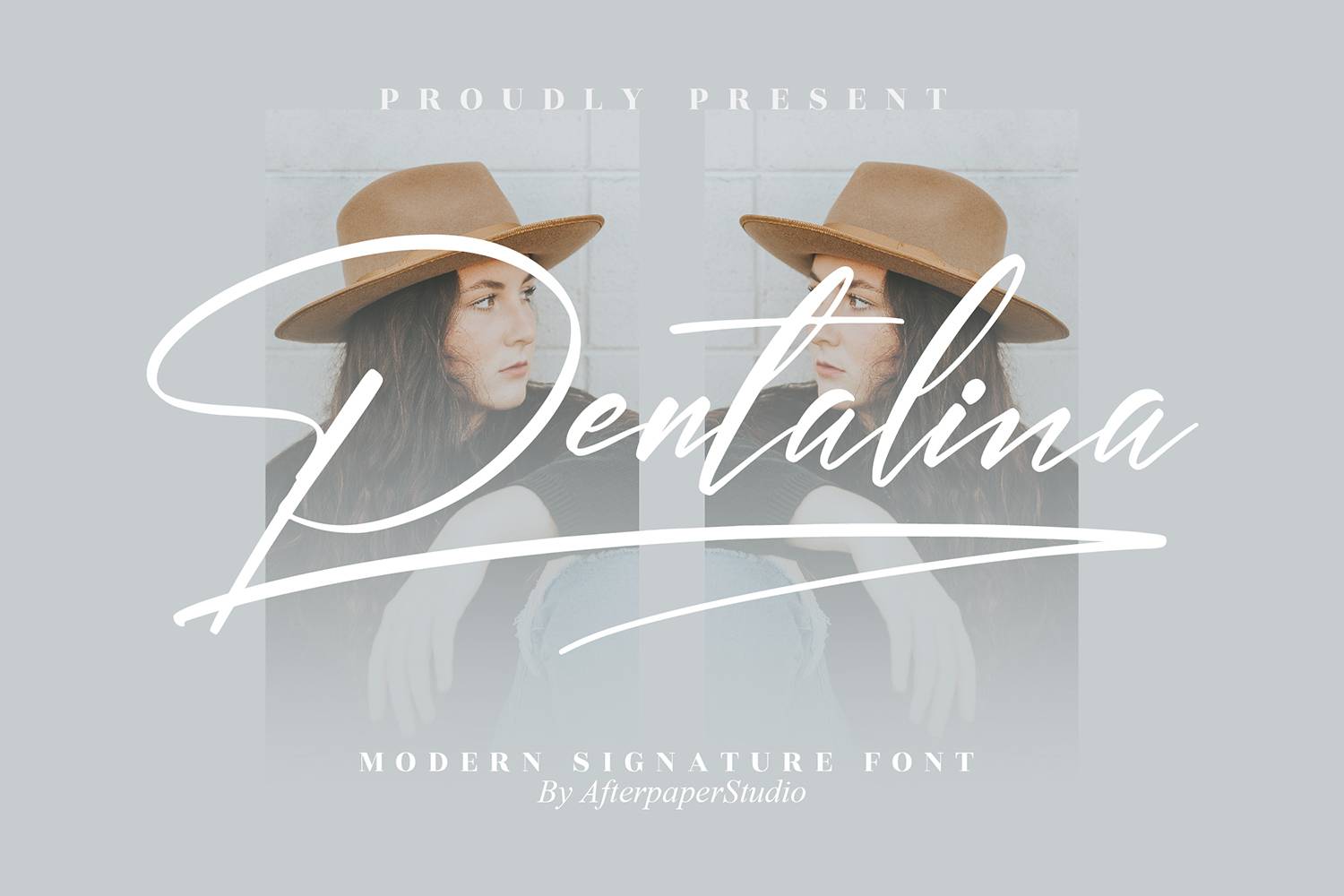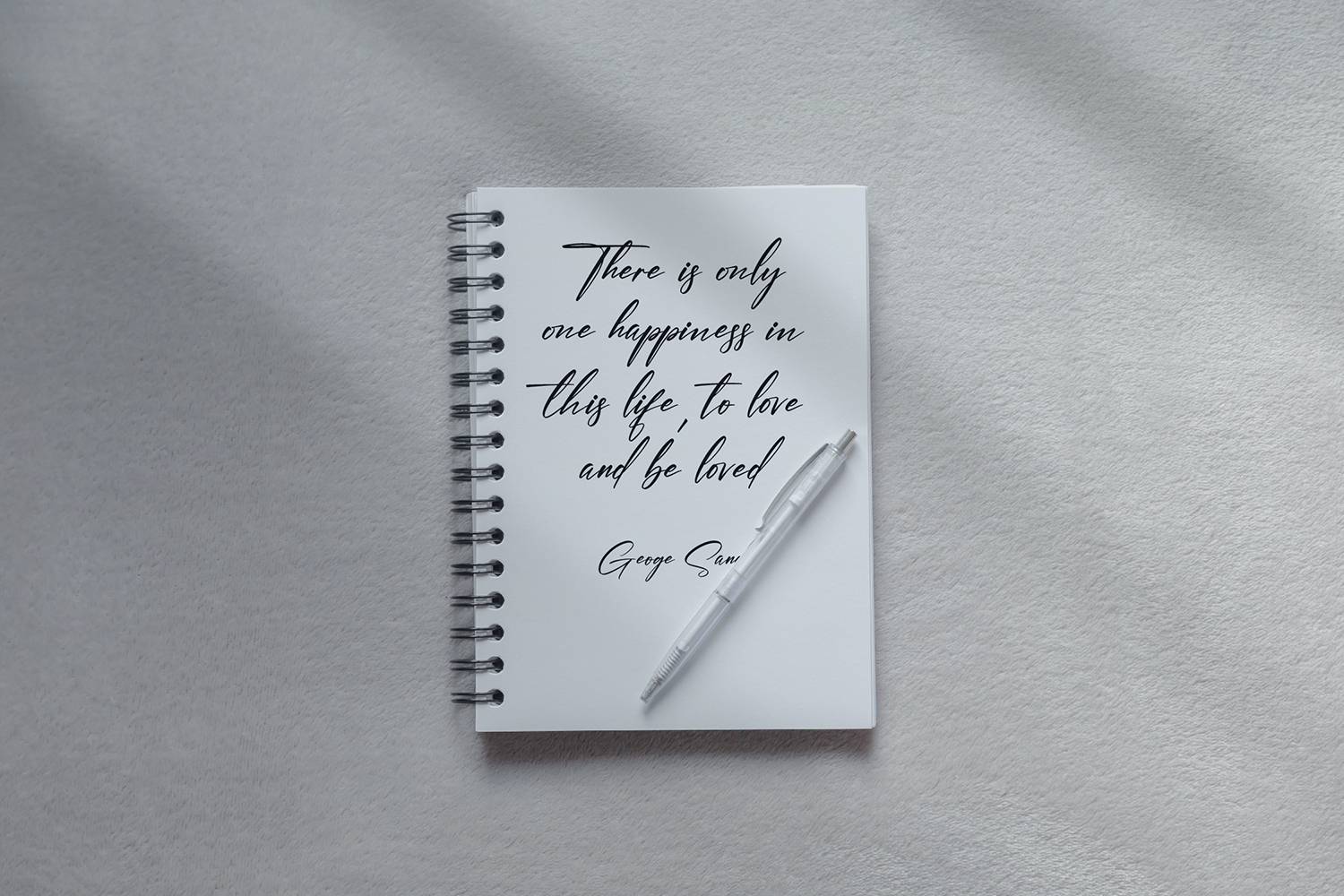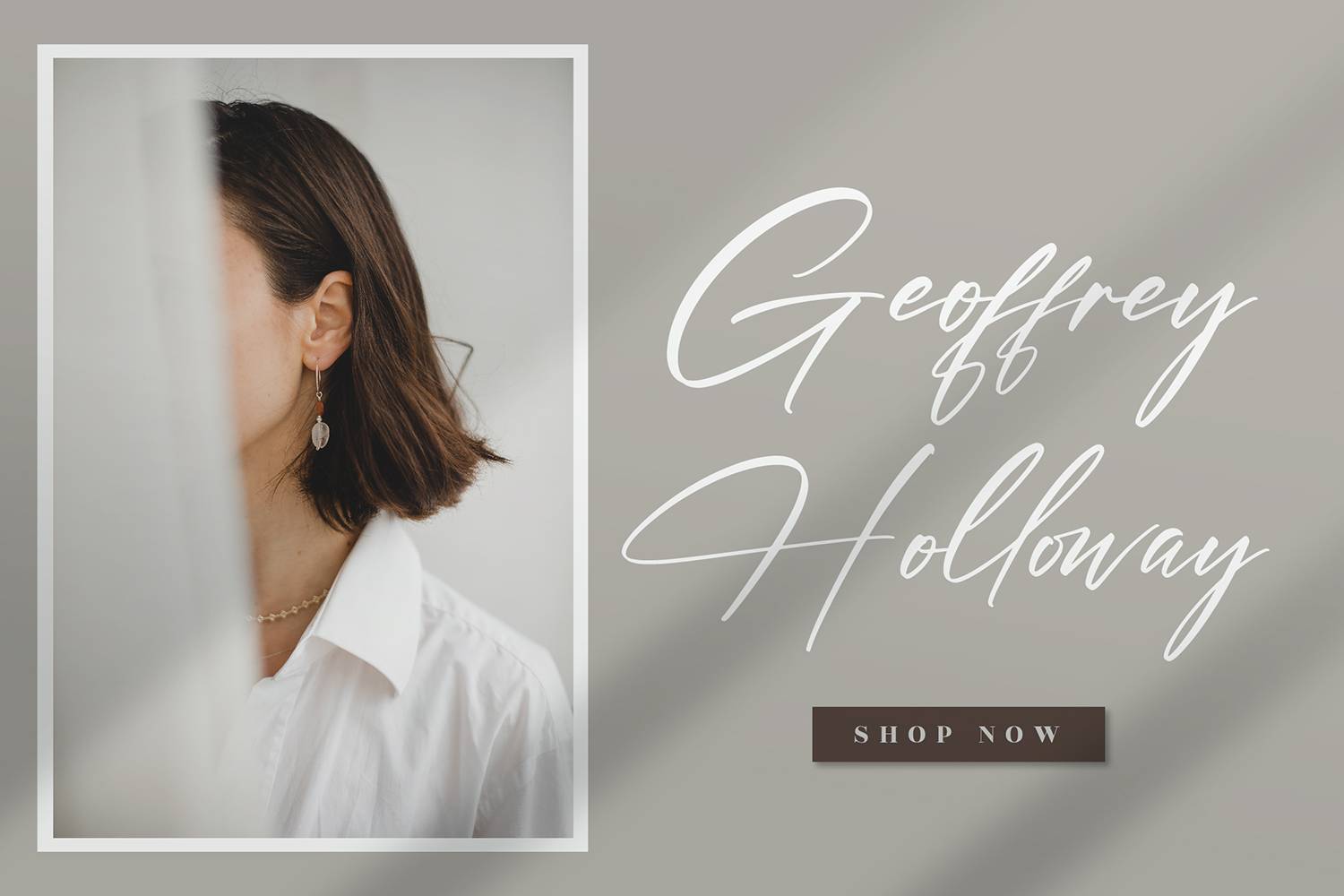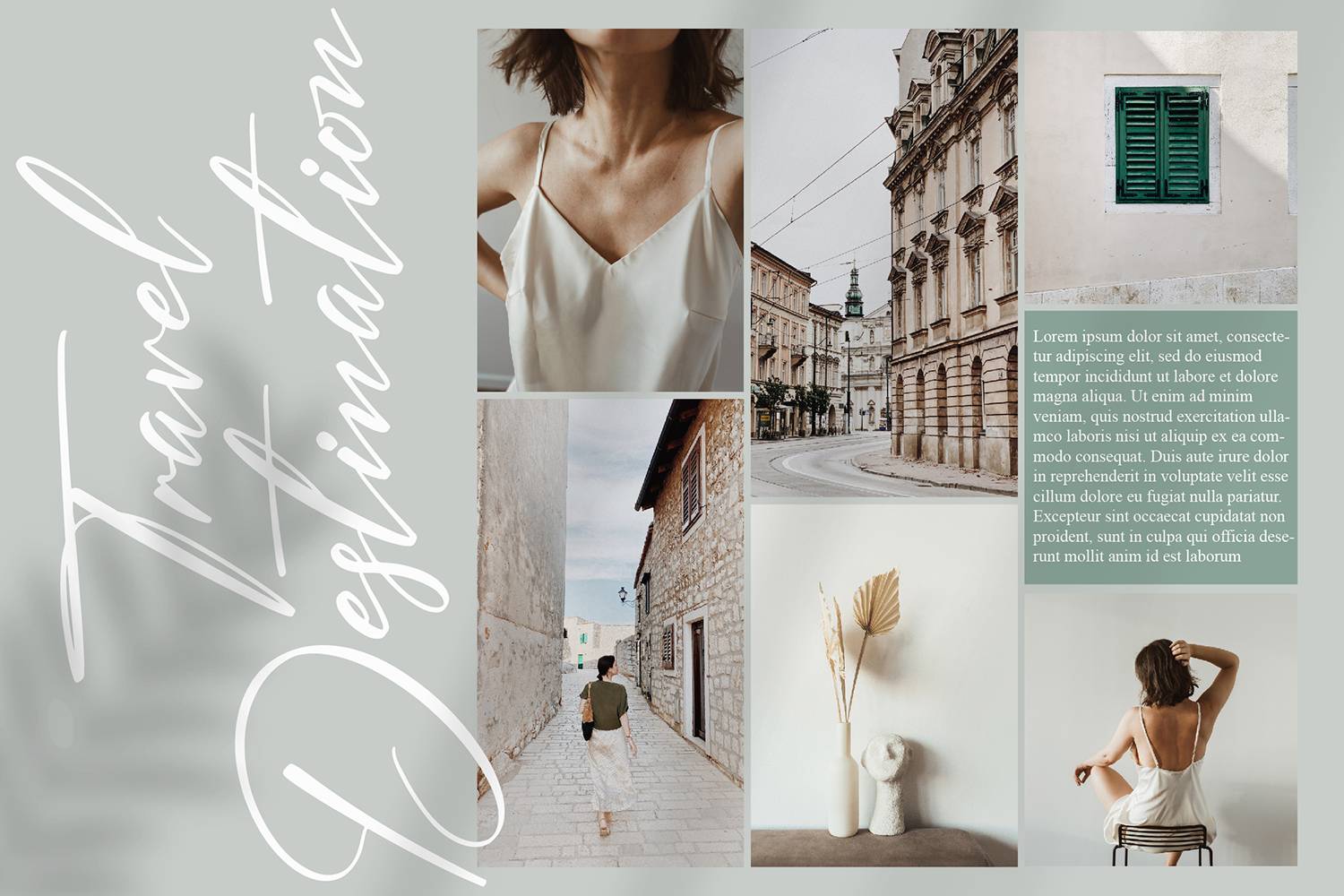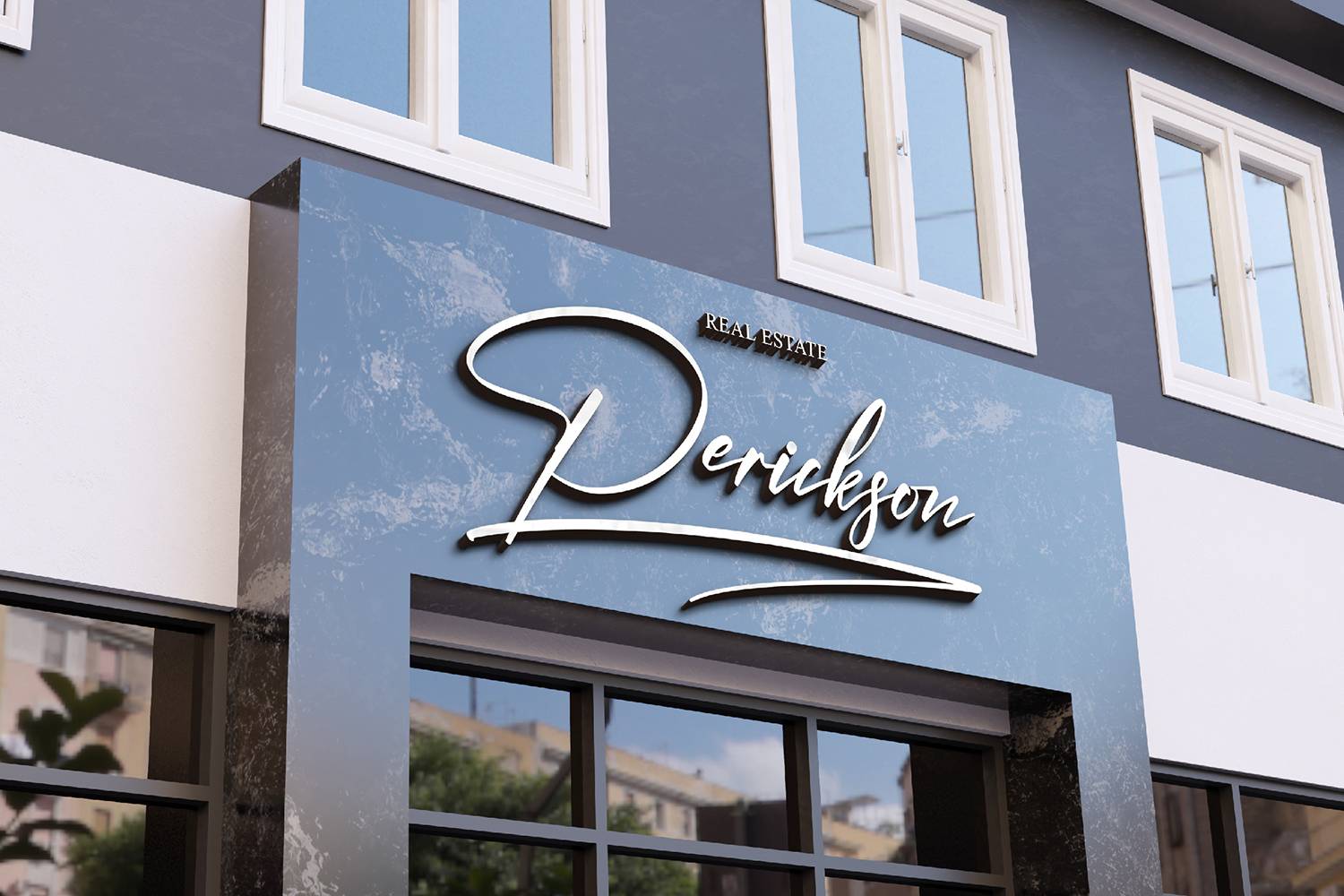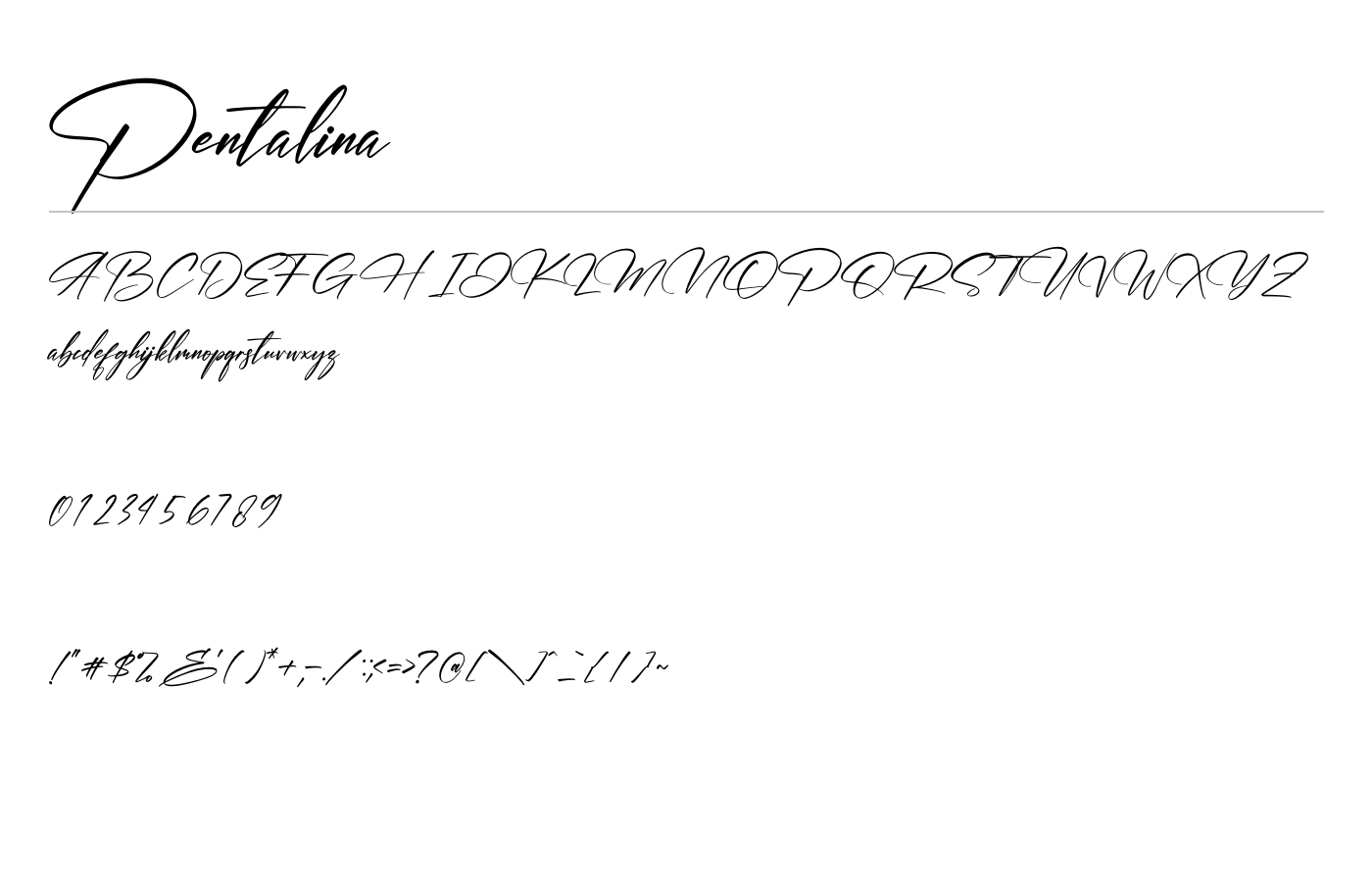
Pentalina is an elegant script font featuring delicate, flowing letterforms with a slender and graceful stroke. Its high, narrow x-height and dynamic, slightly slanted letters give it a refined, sophisticated feel, making it ideal for luxury branding, invitations, and stylish headlines where a touch of class and femininity is desired. This font shines in contexts that call for elegance and personal flair, such as fashion, beauty, and upscale editorial work.
Pentalina Font
About Pentalina Font